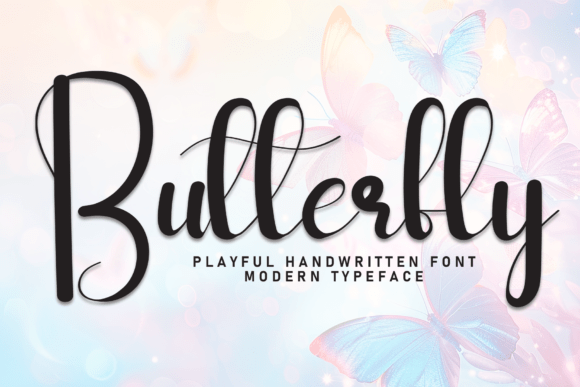
The Magic of Butterfly Font: Elevating Designs with Elegance and Playfulness
I’ll never forget the time I was working on a wedding invitation project, and my client asked for a font that was both elegant and playful. I scoured the internet, trying out font after font, but nothing seemed quite right. That was until I stumbled upon Butterfly Font. With its flowing curves and natural rhythm, it captured the essence of what I was looking for – a font that exuded warmth, sophistication, and creativity. In this article, I’ll share my experience with Butterfly Font, its features, and how to make the most of it in your designs.
A Personal Review of Butterfly Font
- ✨ Elegant and playful at the same time – a rare combination!
- ✅ Flowing curves and natural rhythm that add a personal touch to any project
- 💫 Highly versatile, suitable for invitations, branding, social media, and more
- 🎨 Supports OpenType features, glyphs, and stylistic alternates for added creativity
While Butterfly Font is an excellent choice for many projects, there are a few things to keep in mind:
- ⚠️ Limited availability of Cyrillic and non-English characters – make sure to check the font’s language support
- 🤔 Some users may find the font too ornate or decorative for certain projects – use it judiciously!
A Practical Guide to Using Butterfly Font
- Experiment with OpenType features, such as ligatures and stylistic alternates, to add personality to your text
Butterfly Font was designed with the intention of capturing the essence of elegance and playfulness in a single font. The designer, inspired by the delicate curves of butterfly wings, aimed to create a font that would add a personal touch to any project. With its flowing curves and natural rhythm, Butterfly Font has become a popular choice among designers and crafters.
Q: Is Butterfly Font suitable for body text?
A: While Butterfly Font is beautiful, it’s best suited for headings, titles, and short paragraphs. For body text, a clearer font may be more readable.